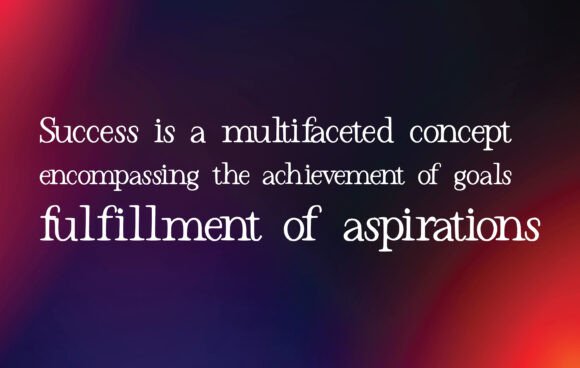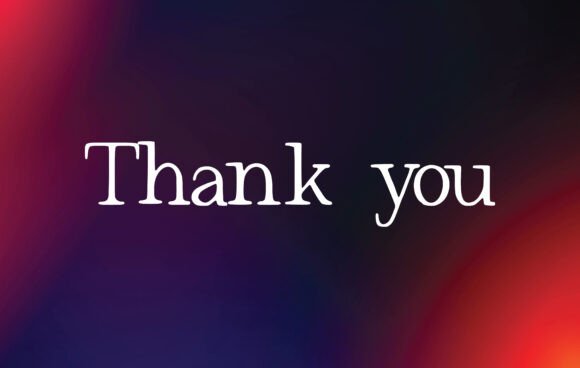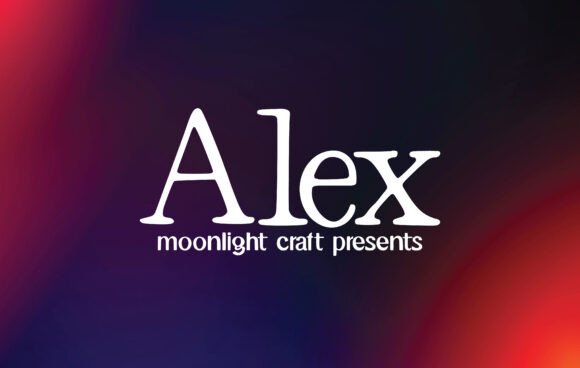
Discover the Creative Potential of Alex Font
Are you a designer, craftsperson, or creative looking for the perfect font to elevate your projects? Look no further than Alex Font, a stunning and versatile typeface that can help take your ideas to new heights. With its unique blend of style and sophistication, Alex Font is the ideal choice for creating eye-catching logos, branding, and quotes that capture attention and leave a lasting impression.
The Beauty of Alex Font
Alex Font is, without a doubt, a lovely and beautiful font that boasts a distinctive charm. Its elegant lines, curves, and shapes come together to create a visually appealing aesthetic that is sure to captivate audiences. Whether you’re working on a branding project, designing a logo, or crafting a compelling quote, Alex Font provides the perfect foundation for your creative expression.
Unleash Your Creativity with Alex Font
What sets Alex Font apart is its incredible potential to bring your creative ideas to life. Its versatility and flexibility make it an excellent choice for a wide range of design applications, from print materials to digital media. With Alex Font, you can:
• Create stunning logos that represent your brand’s identity and values
• Develop eye-catching branding materials that capture attention and build recognition
• Craft inspiring quotes that motivate and engage your audience
• Design beautiful stationery, such as business cards, letterheads, and invoices
• Produce captivating social media graphics, blog posts, and website content
Why Choose Alex Font?
So, what makes Alex Font the best choice for your design projects? Here are just a few reasons why designers and crafters love working with this amazing font:
• Unique Style: Alex Font boasts a distinctive style that sets it apart from other fonts. Its elegant and sophisticated aesthetic makes it perfect for projects that require a touch of class and refinement.
• High Versatility: Whether you’re working on a print or digital project, Alex Font adapts seamlessly to different mediums and applications.
• Easy to Read: Despite its elegant appearance, Alex Font remains highly legible, making it an excellent choice for body text, headings, and titles.
• Customizable: With Alex Font, you can experiment with different colors, sizes, and styles to create a unique look that suits your project’s requirements.
Tips for Getting the Most Out of Alex Font
To truly harness the creative potential of Alex Font, here are some expert tips to keep in mind:
• Experiment with Colors: Try pairing Alex Font with different colors to create a unique visual identity for your project.
• Play with Sizes: Use Alex Font in various sizes to create visual hierarchy and emphasize key messages.
• Mix and Match: Combine Alex Font with other fonts to create a distinctive style that reflects your brand’s personality.
• Pay Attention to Kerning: Adjust the kerning and spacing to ensure that your text looks polished and professional.
In conclusion, Alex Font is an exceptional choice for designers and crafters looking to elevate their creative projects. With its stunning beauty, versatility, and ease of use, this font has the potential to take your ideas to new heights. Whether you’re working on a logo, branding, or quote, Alex Font provides the perfect foundation for your creative expression. So why wait? Discover the creative potential of Alex Font today and unleash your imagination!